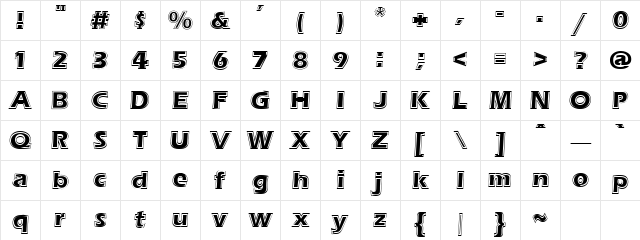
Speak 1 Regular
Design Context for Speak 1
Speak 1 is a composed and adaptable typeface that performs quietly and consistently across a wide range of design contexts.